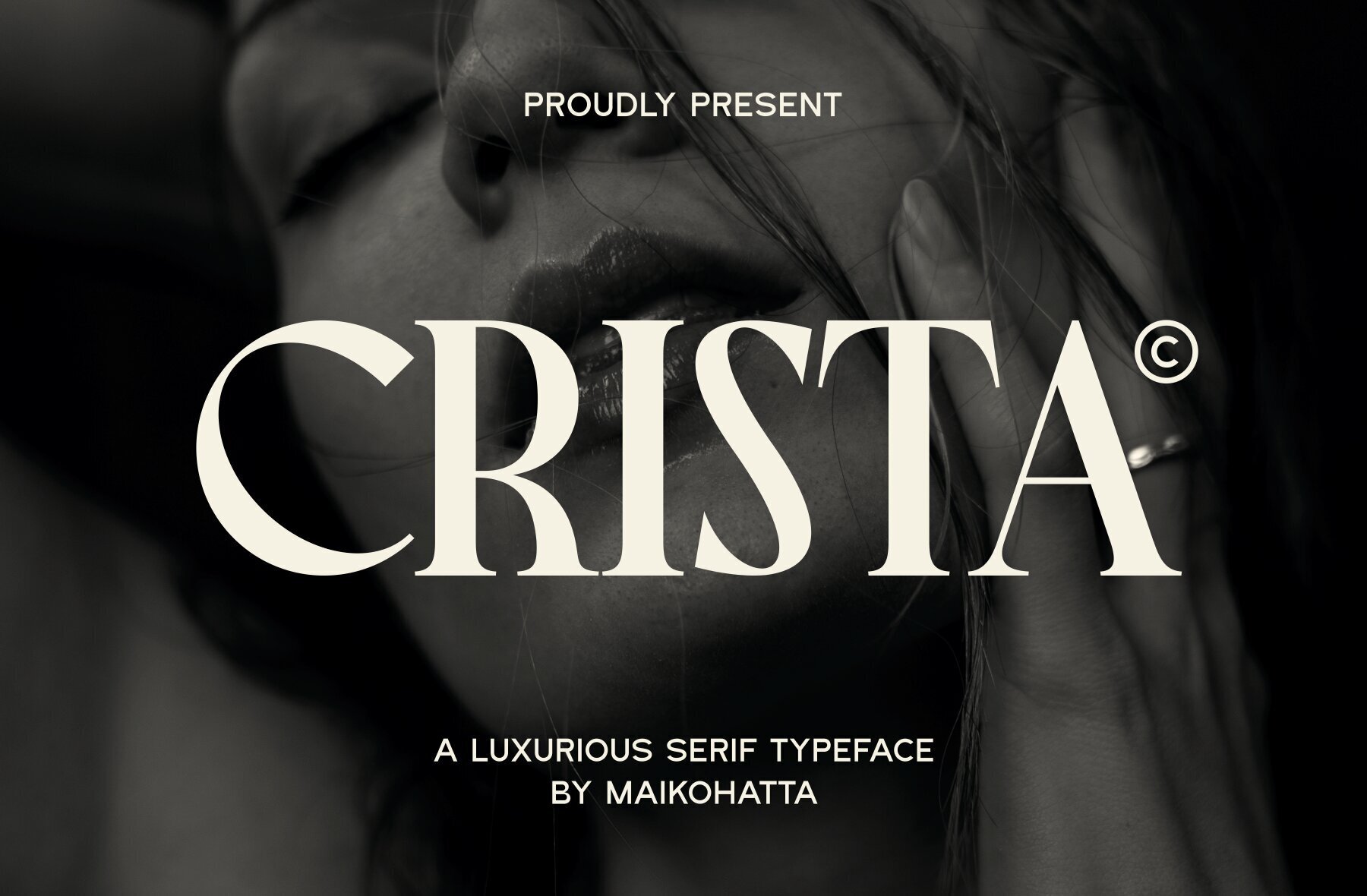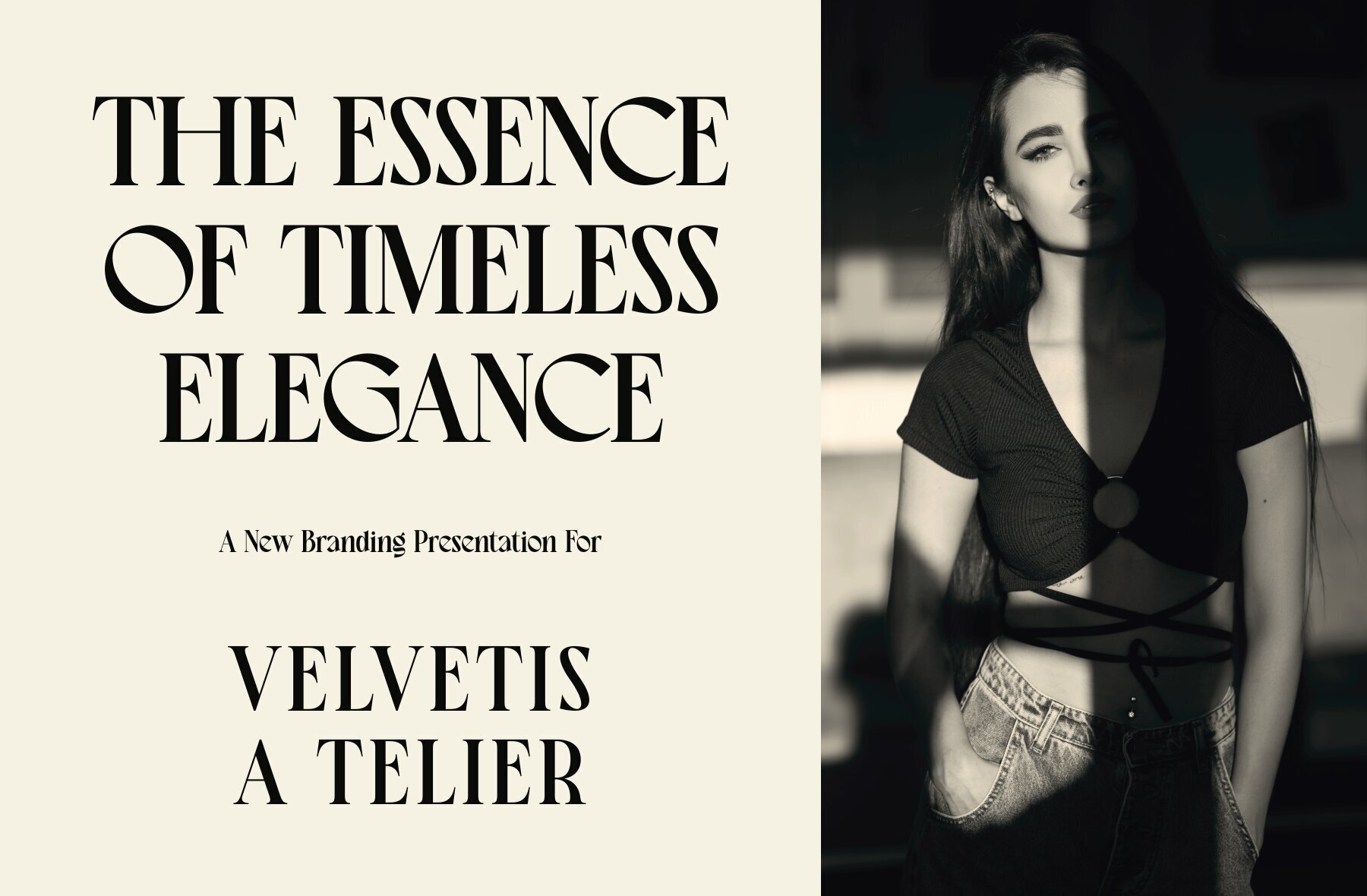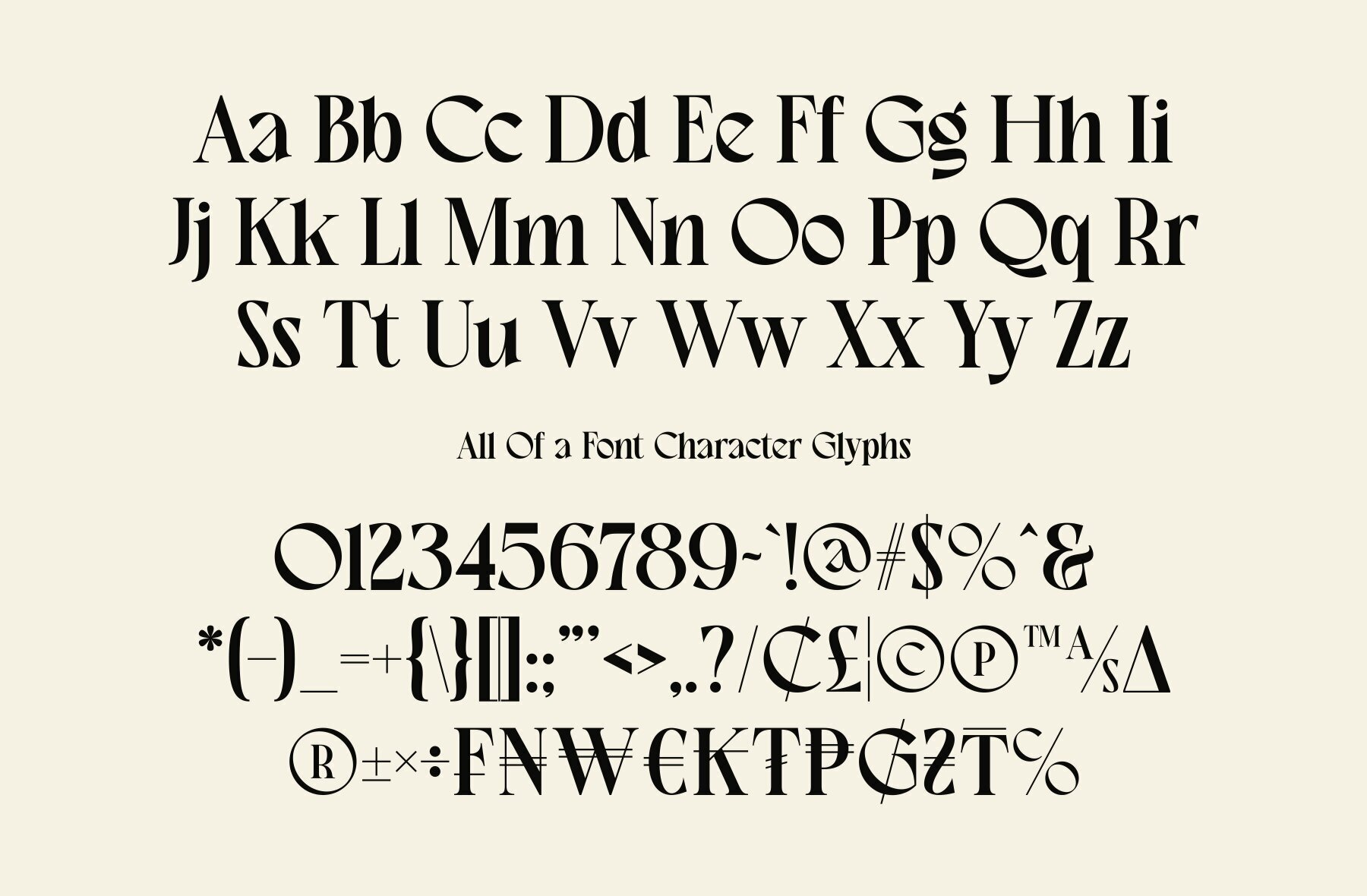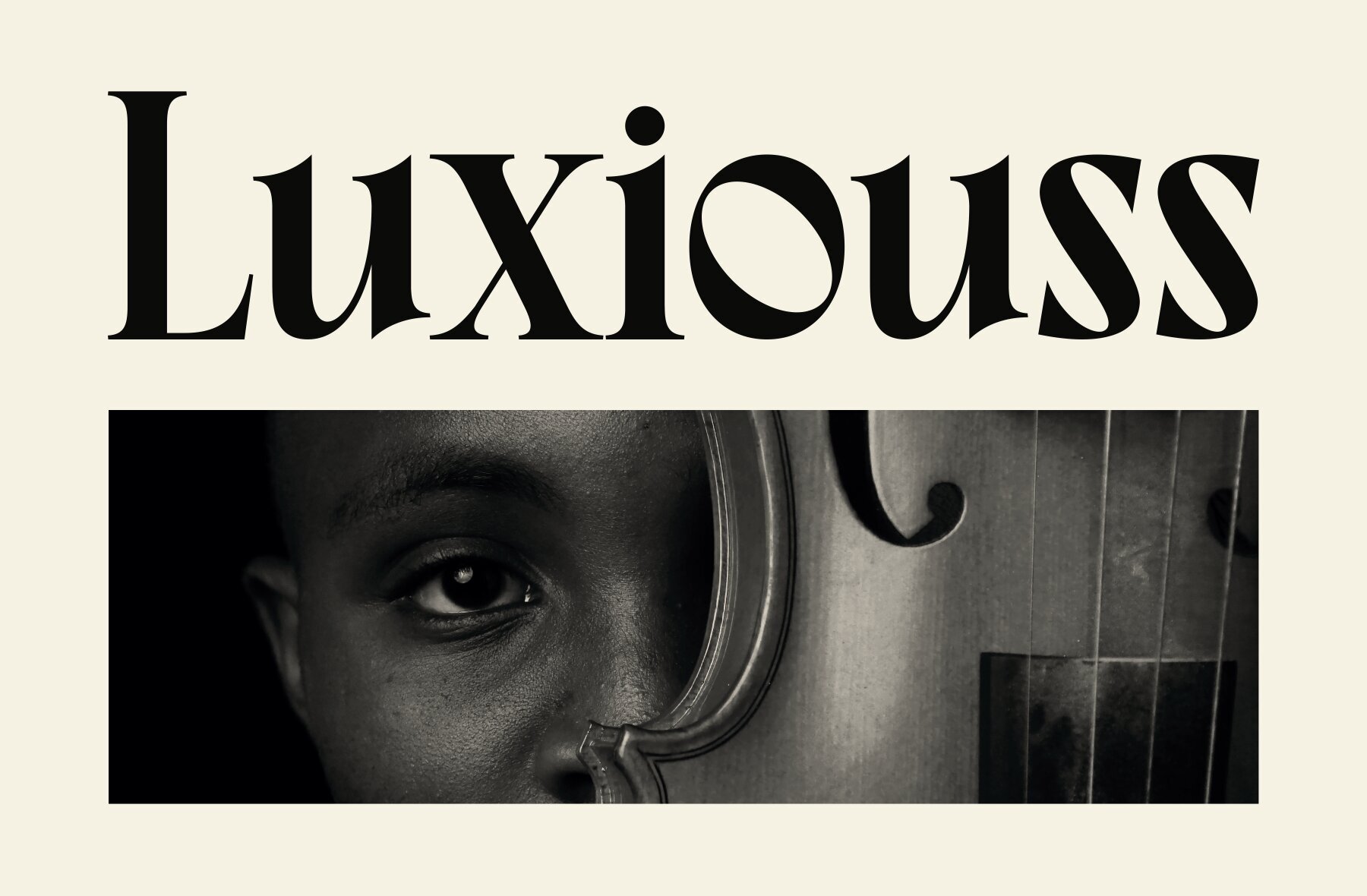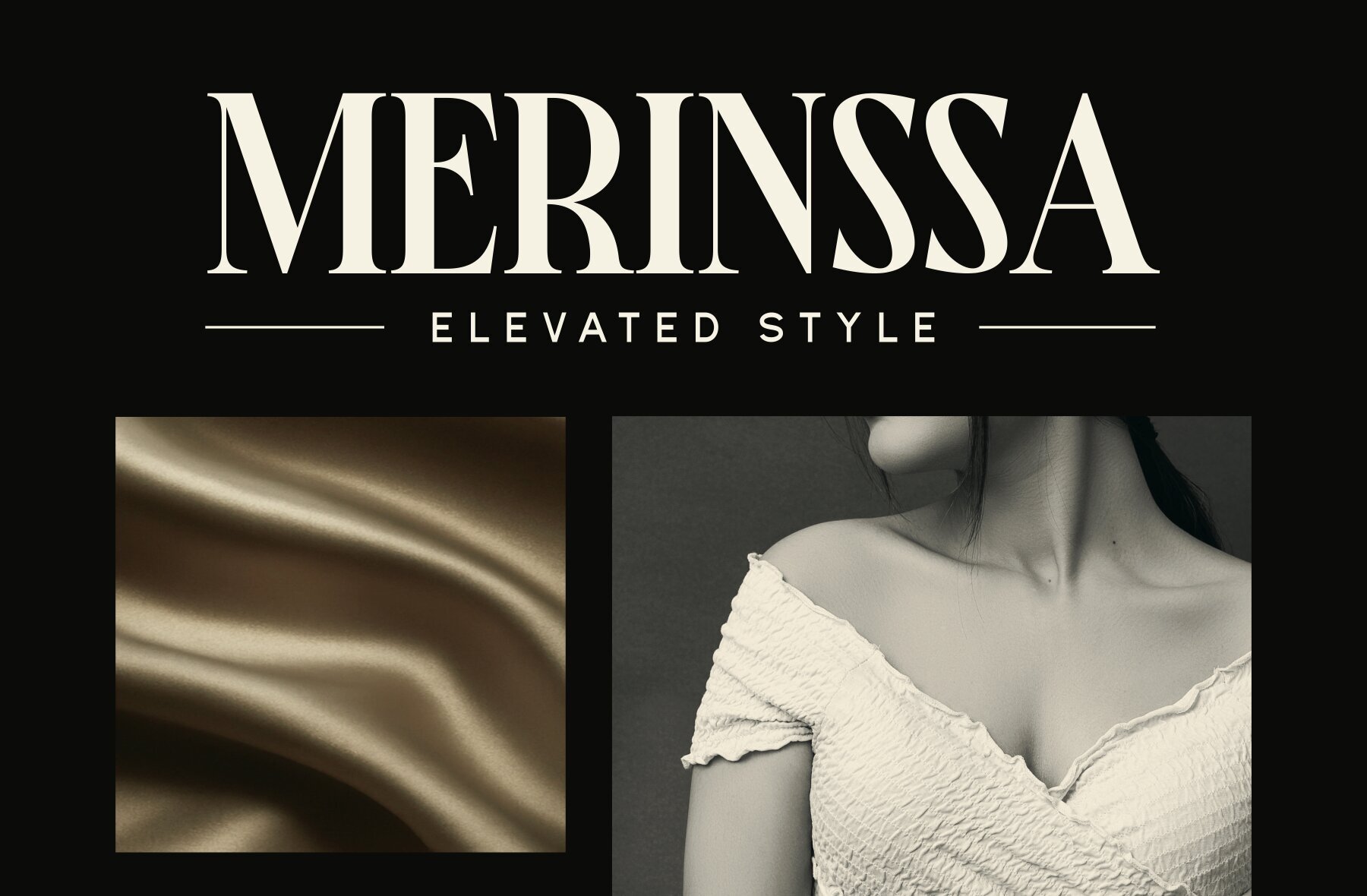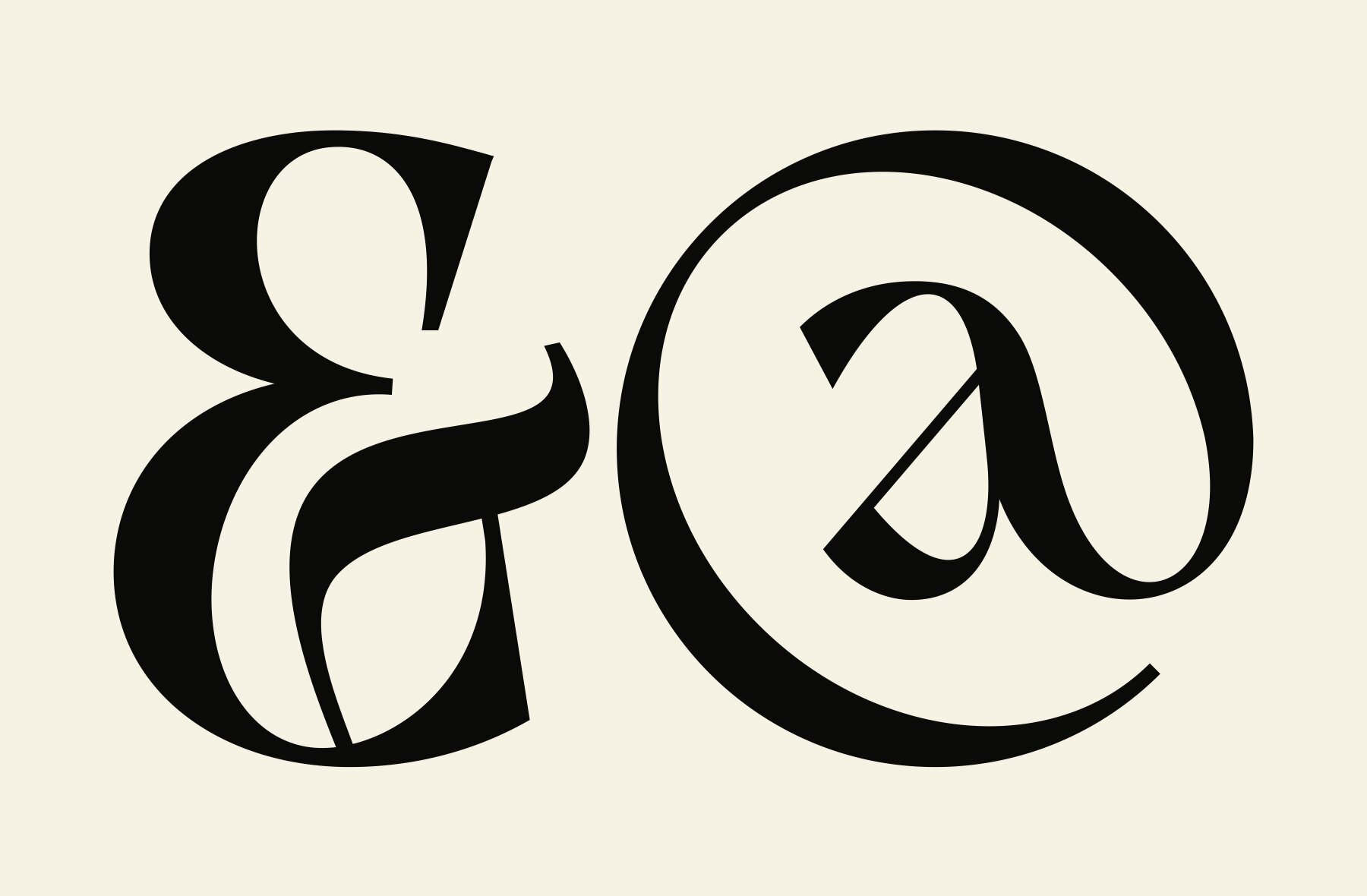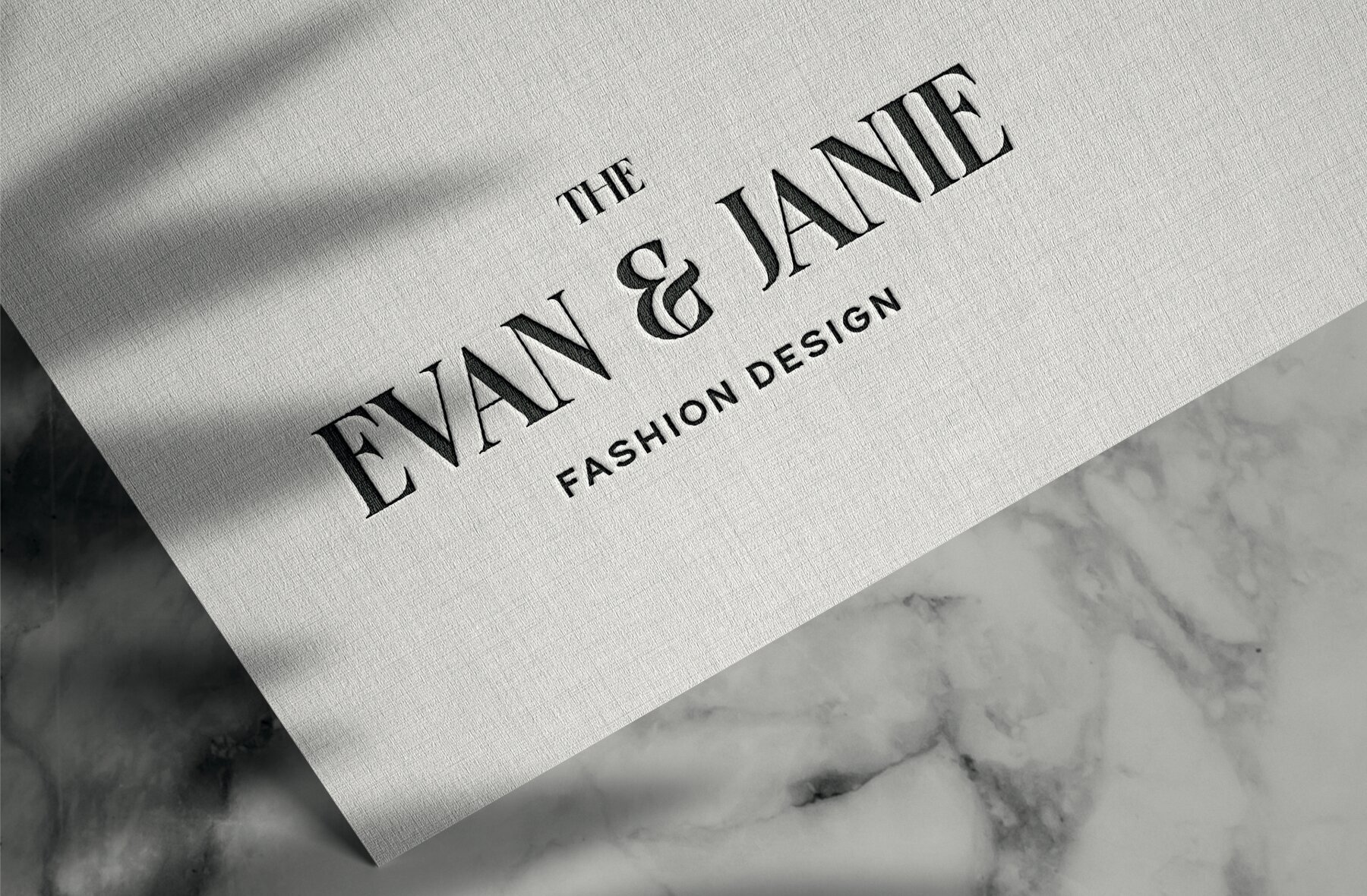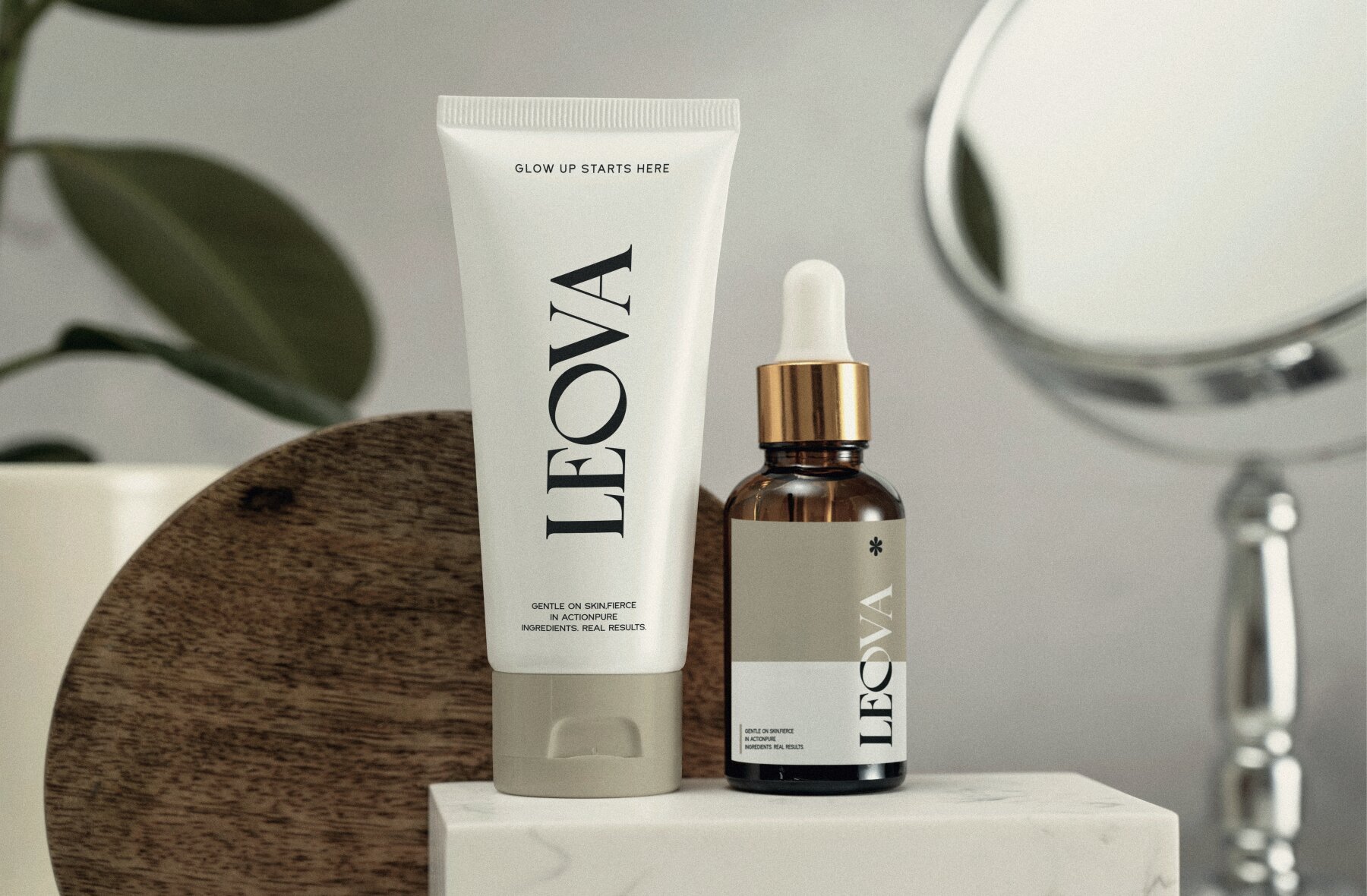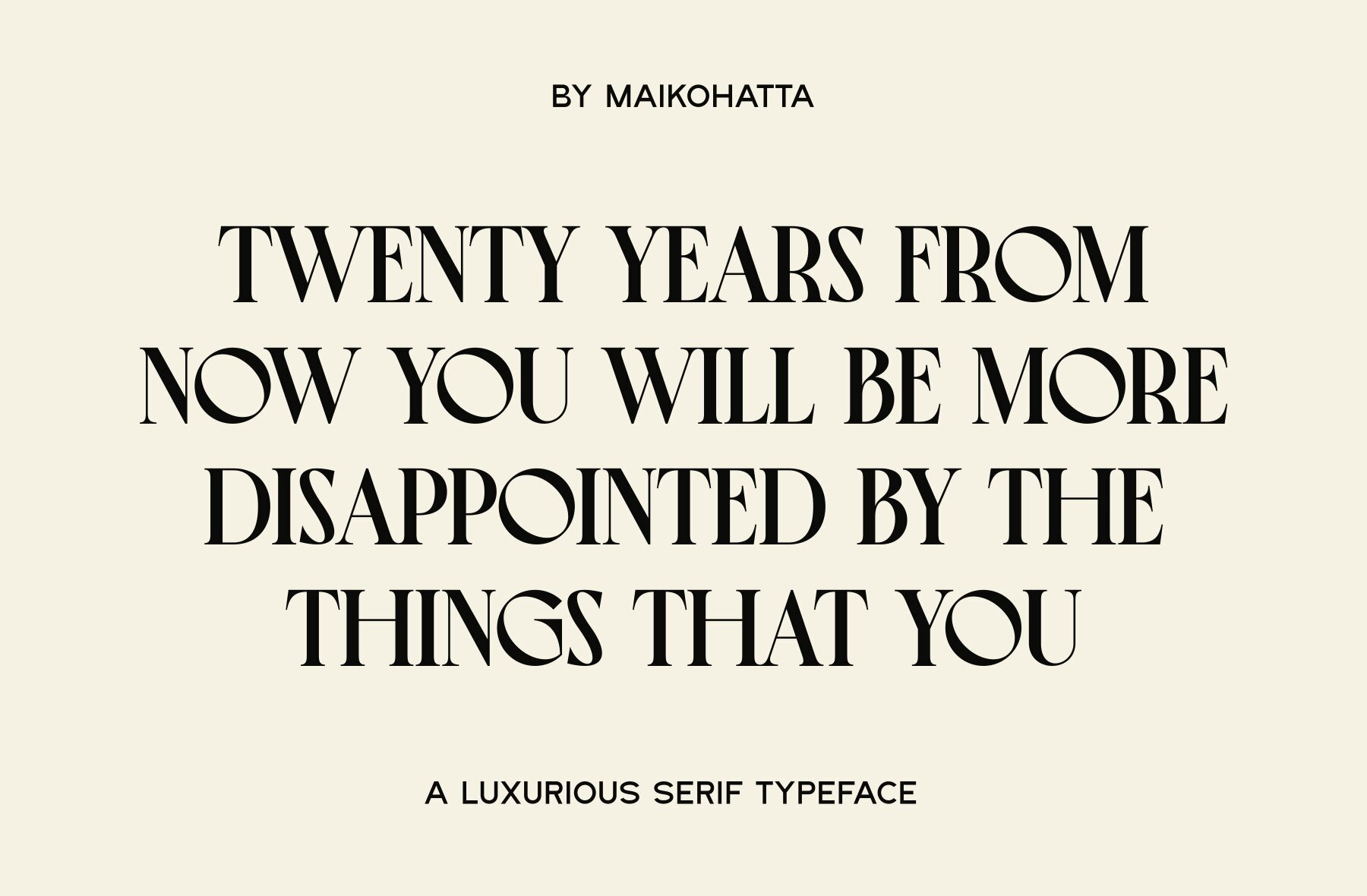
Crista Font
Crista
The Crista serif typeface embodies a timeless blend of sophistication and elegance, characterized by its distinct high contrast between thick and thin strokes, polished serifs, and smooth curves. This exquisite typeface harmonizes classic formality with a contemporary flair, making it an ideal choice for editorial design, luxury branding, elaborate invitations, and deluxe packaging. Features: Crista infuses any layout with a sense of elegance and precision, ensuring your projects radiate the sophistication they deserve.Crista: An Elegant Serif Typeface for Timeless Sophistication
Versatility for Diverse Uses